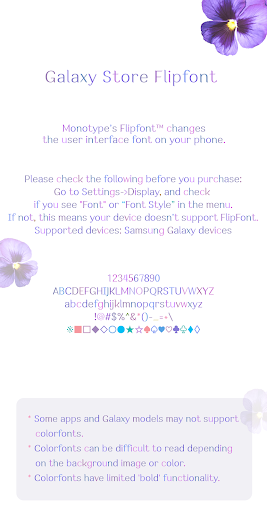
ZF Violet
This font is optimized for good looks and comfort.
Understated serifs and not too much posture add luxury.
It talks about a warm spring with light purple pastel tones resembling violets.
A pretty little flower that comes back when the cold air gets warm.
The purple scent and pastel color warmly comfort me.
The violet buds always tell me they love me.